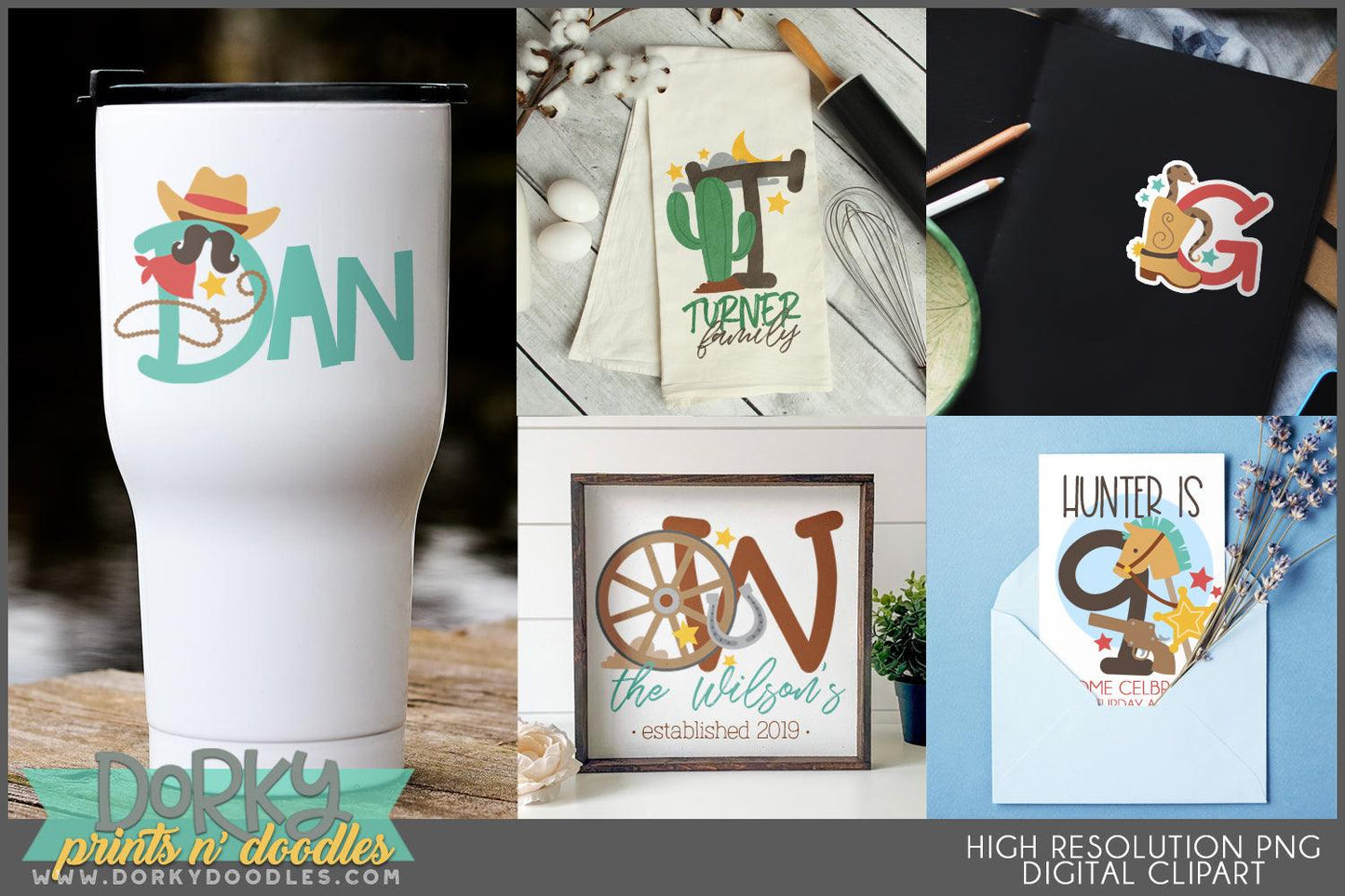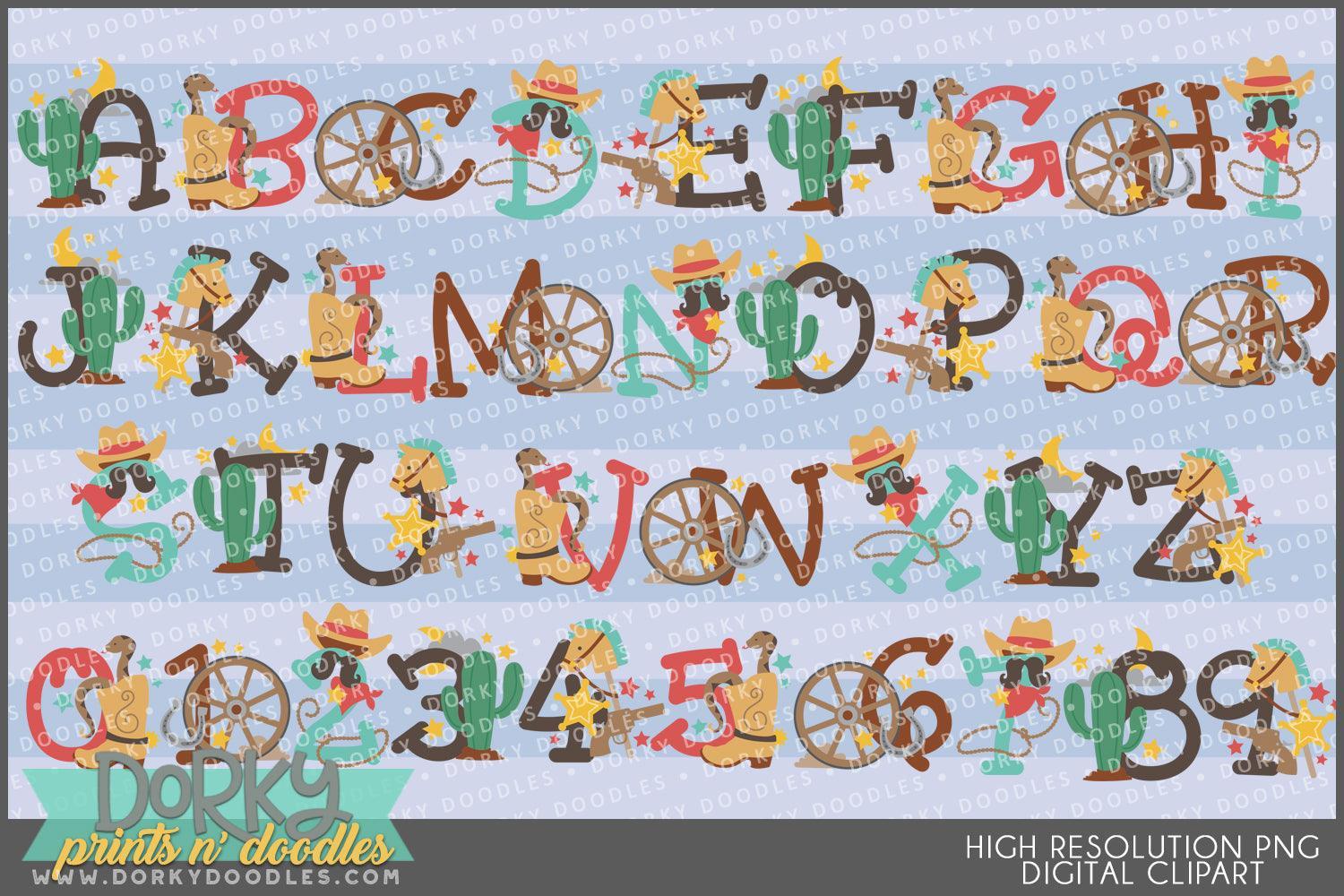
Cute Western Alphabet Clipart
Looking to add a fun spark to your projects? What could be better than these cute western letter and number clipart images and frames? Perfect for your party invitations, cookies, stickers, sublimation, planners, scrapbooking projects and more! You will get 36 Digital Clip Art images in high resolution PNG format (they come as a ZIP file that you can download instantly once payment has cleared).
• the full alphabet and the numbers 0-9 featuring cactus, cowboy boots, cowboy hats, mustaches, wagon wheels, and More